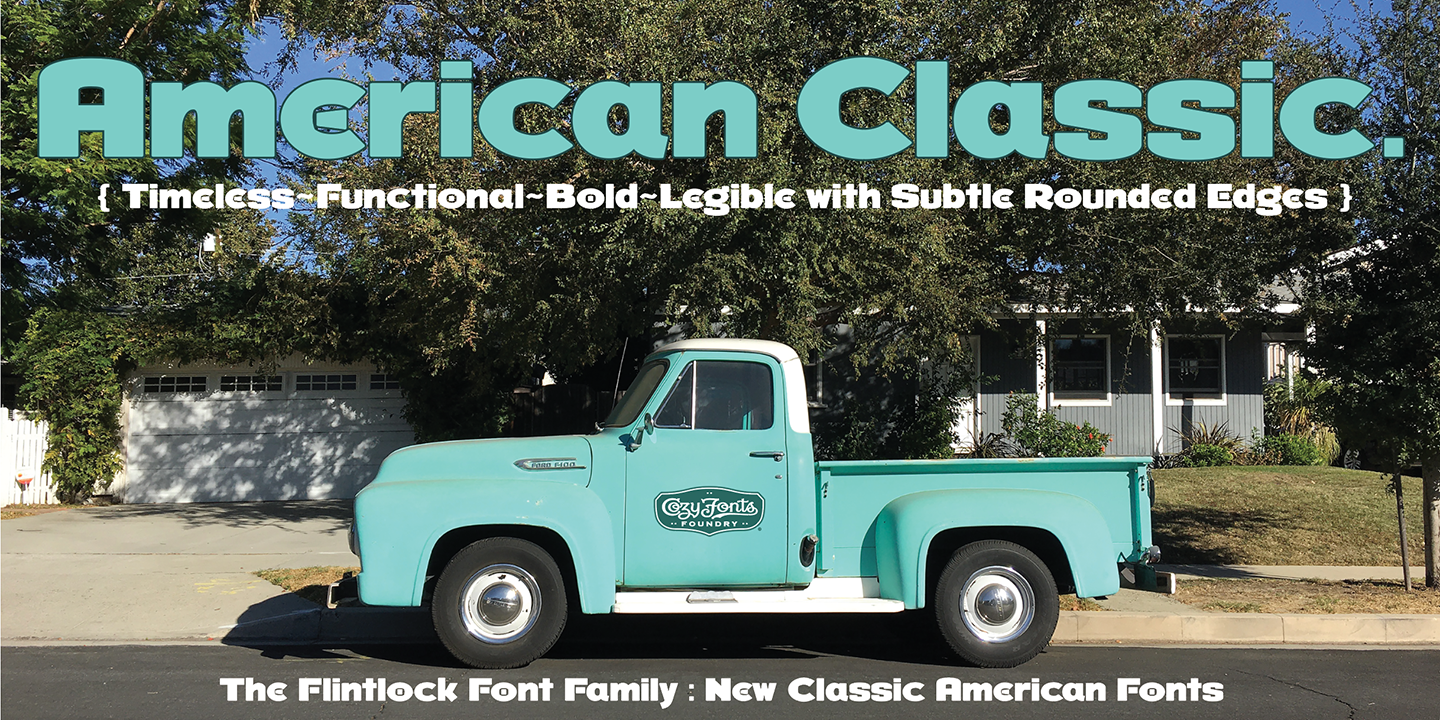
Flintlock Rough
Designed by Tom Nikosey, Flintlock is a display sans font family. This typeface has three styles and was published by CozyFonts Foundry.
CozyFonts Foundry/ Tom Nikosey, designer
Flintlock
Tom Nikosey
The Flintlock Font Family has a Bold personality. The ‘Rough’ version of the Flintlock Font has a hand-carved or hand-etched edge, carefully crafted for each of over 300 glyphs. Caps, lower case, all numbers, fractions, accents and European characters that work in over 70 languages. ‘Classically Built with a Vintage Flair’. Vintage in the American West Tradition that might have been forged and implemented from the 1860s through the 1930s and consequently fresh again.
Flintlock Rough can be envisioned on many things dated from 1860 to present day. The font is available in 3 basic weights as of this release date. There are other versions on the drawing board…
Flintlock Rough works extremely well with Posters, Branding, Movie Titles, Invites, Stationary, Signage, Embroidery, Letterpress, Ads, Logos and anything that feels Industrial or Hand-Crafted, eg. Coffee, Breweries, Antiques, Woodcuts, Western Styles, Sports Styles, Holidays, Menus, etc.
Flintlock Flat & Flintlock Flat Italic are the siblings to Flintlock Rough without the hand-carved edge but rather clean with slightly rounded corners and edges. Extremely Legible, Bold and best used in all the same application descriptions mentioned above and more, specifically contemporary uses and settings, eg. Sports, Titles, Branding,
Headlines, Logos and more.
Curiously The Flat & Italic versions of Flintlock work extremely well in 1960s and 1970s settings.